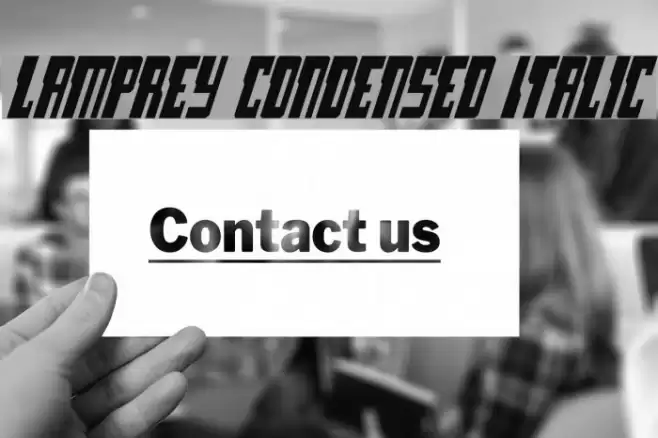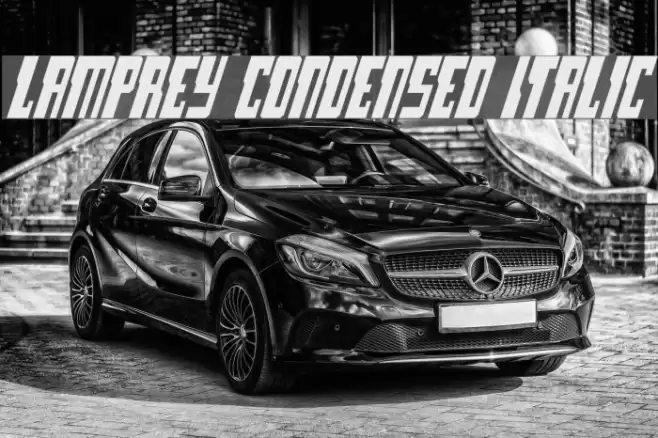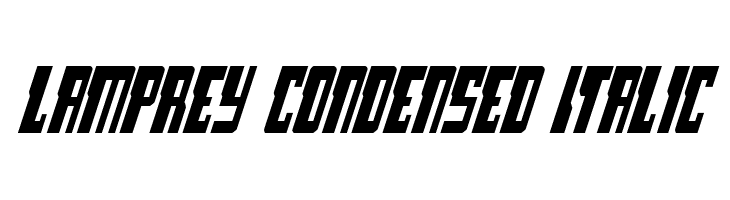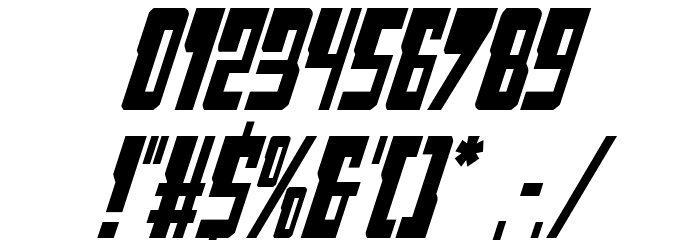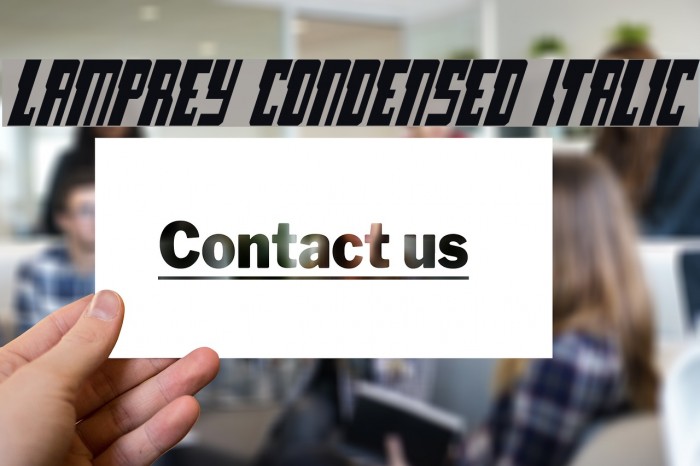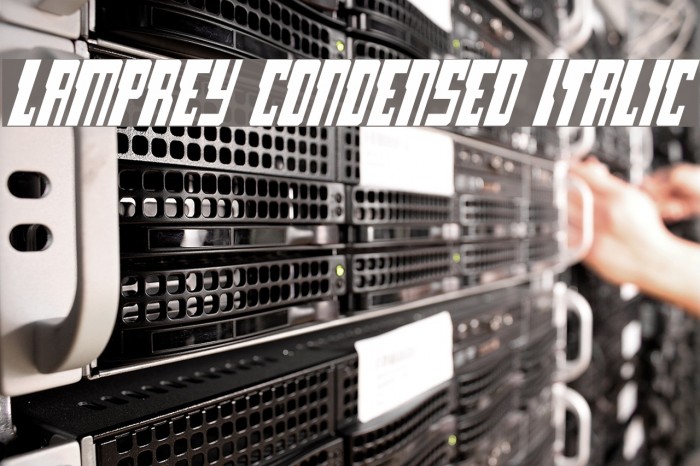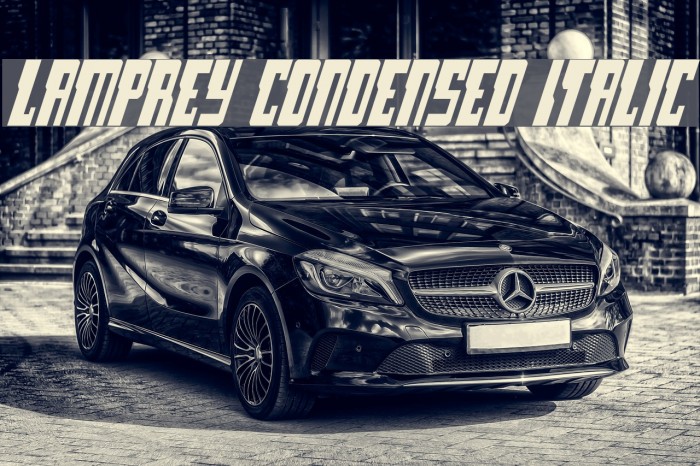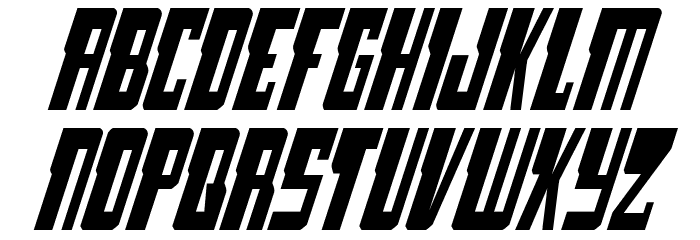
Lamprey Condensed Italic Font
Lamprey Condensed Italic Description
This font features a bold, condensed style with a distinct italic slant, giving it a dynamic and forward-moving appearance. The characters are tightly spaced, enhancing its compact look. The high contrast between thick and thin strokes adds to its striking visual impact. Its angular and geometric design elements make it suitable for modern and edgy design projects. The uppercase letters are particularly prominent, with sharp edges and a strong presence, while the numerals and special characters maintain the same bold and condensed aesthetic.
A bold, condensed, and italic font with high contrast and a modern, dynamic style from Uncategorized fonts.
- Proposed Projects: Ideal for sports branding, dynamic posters, edgy advertisements, and modern logo designs.
- Character Spacing: Tight